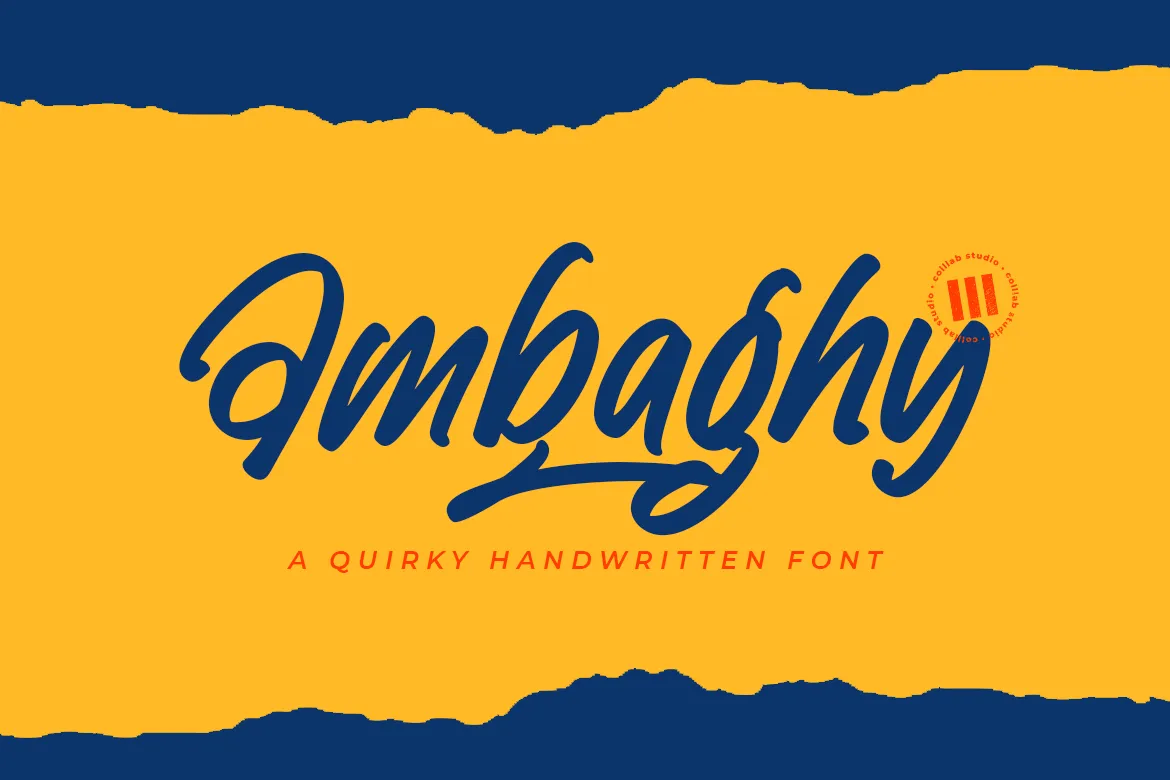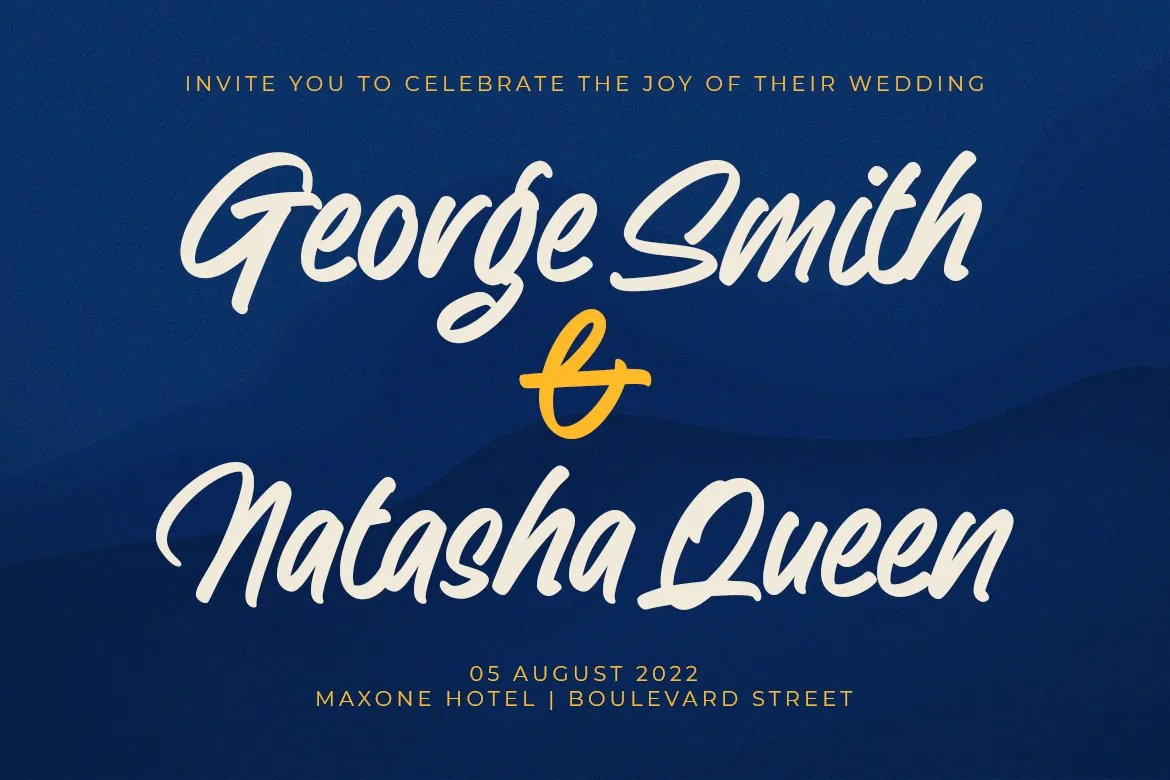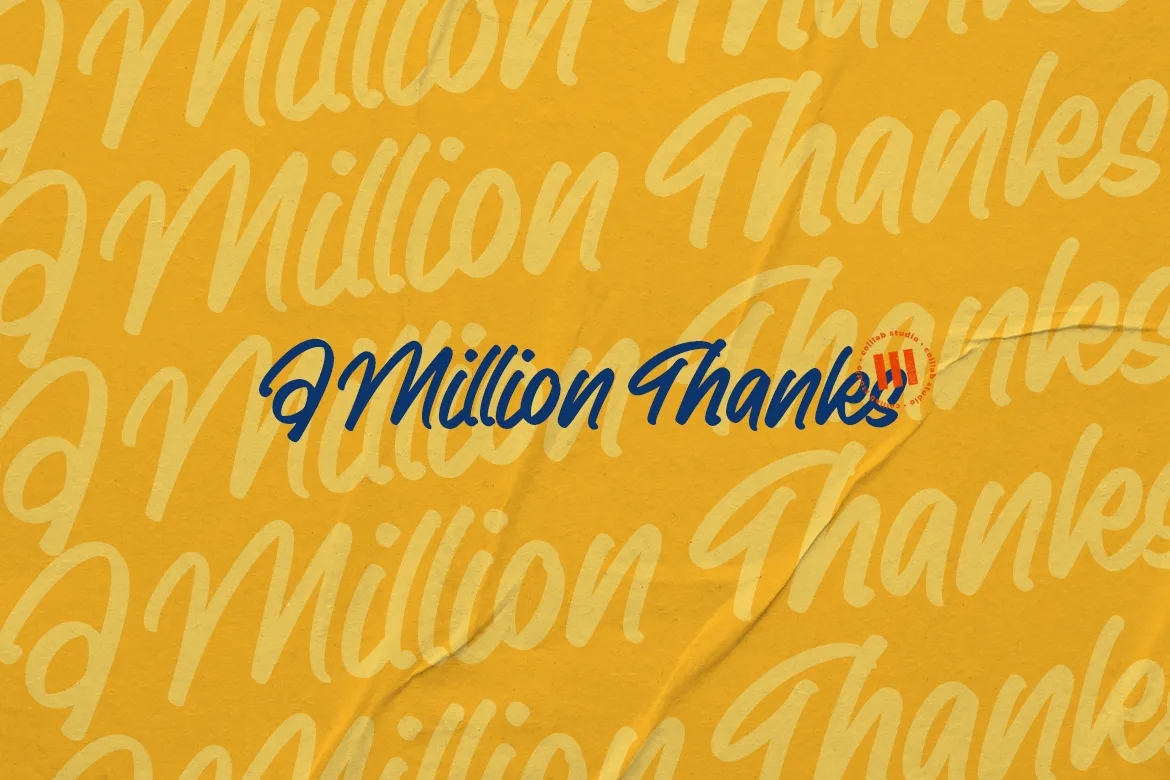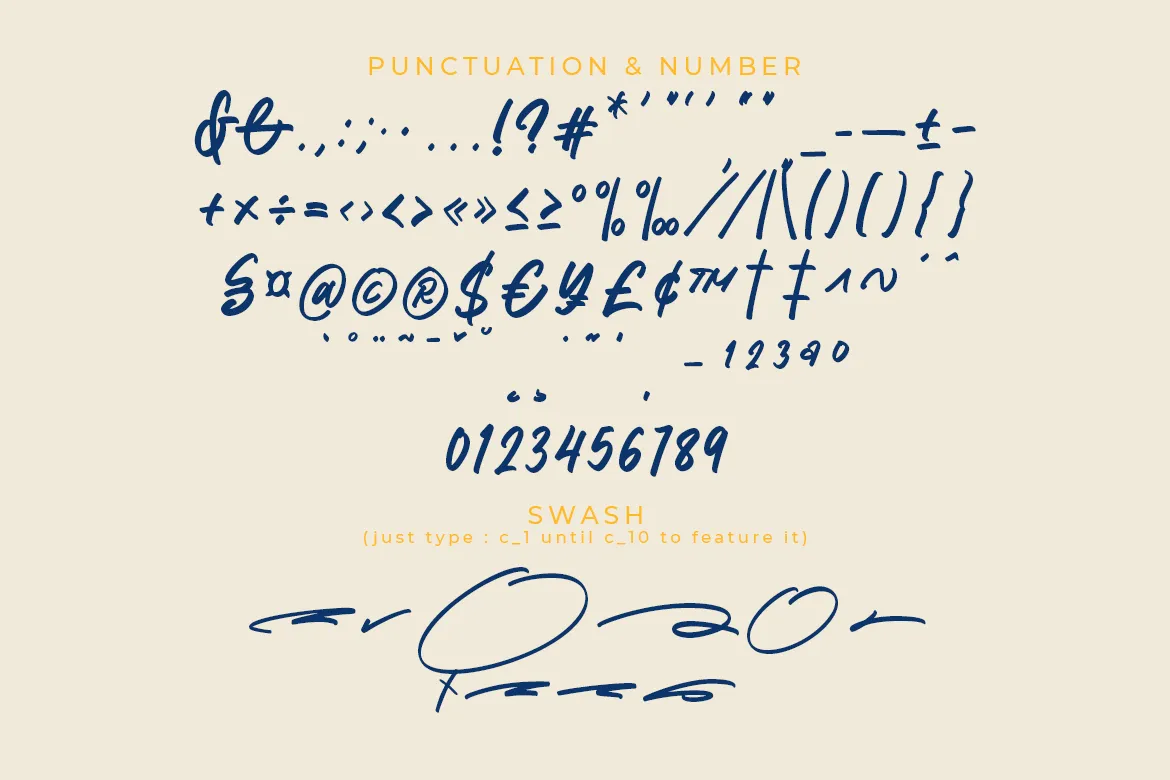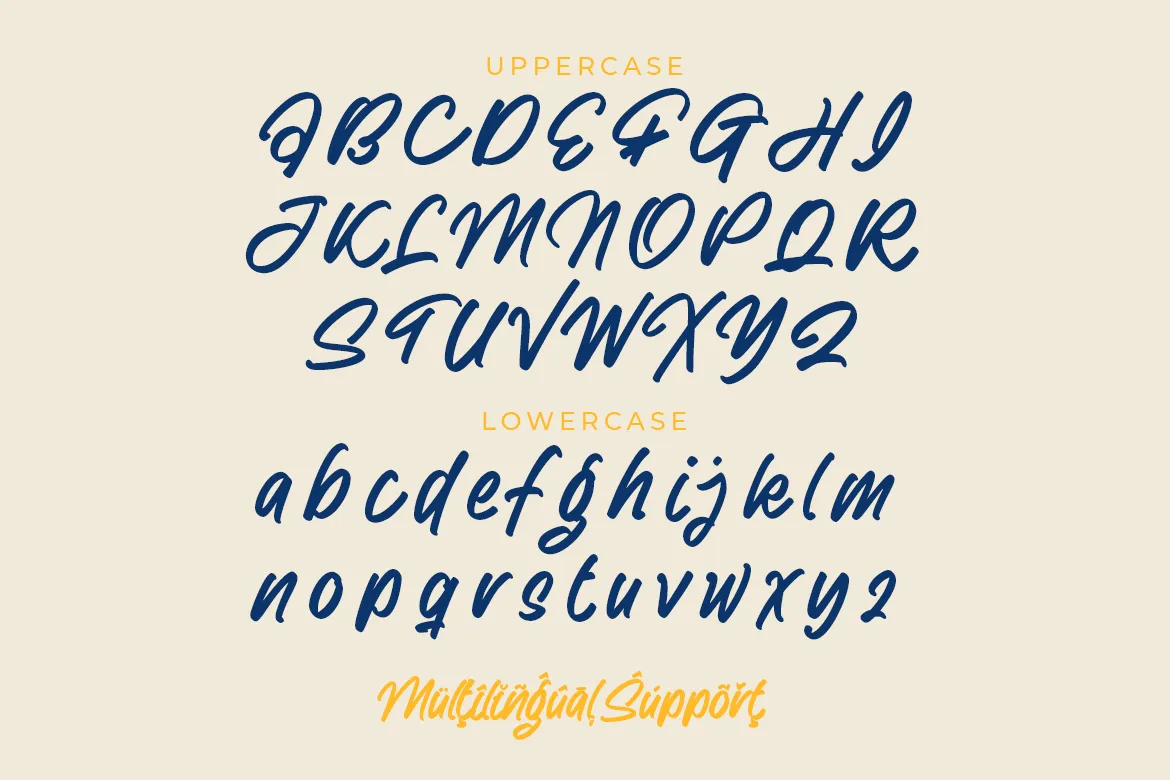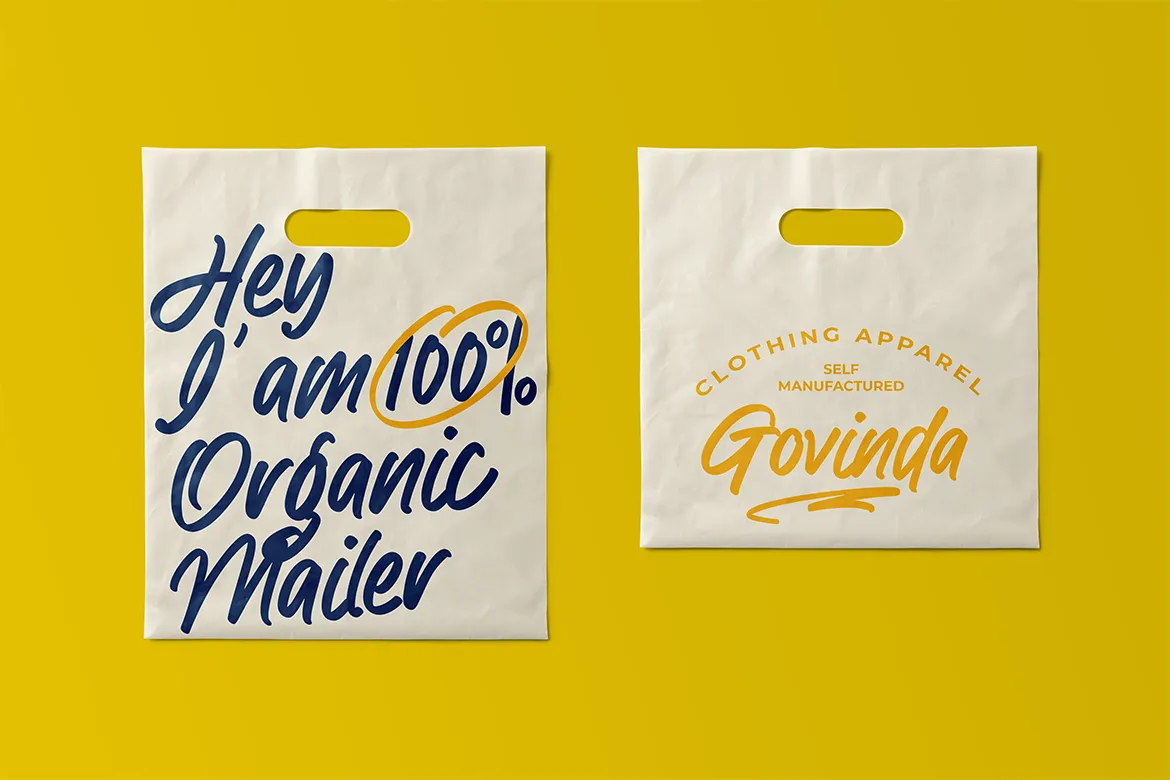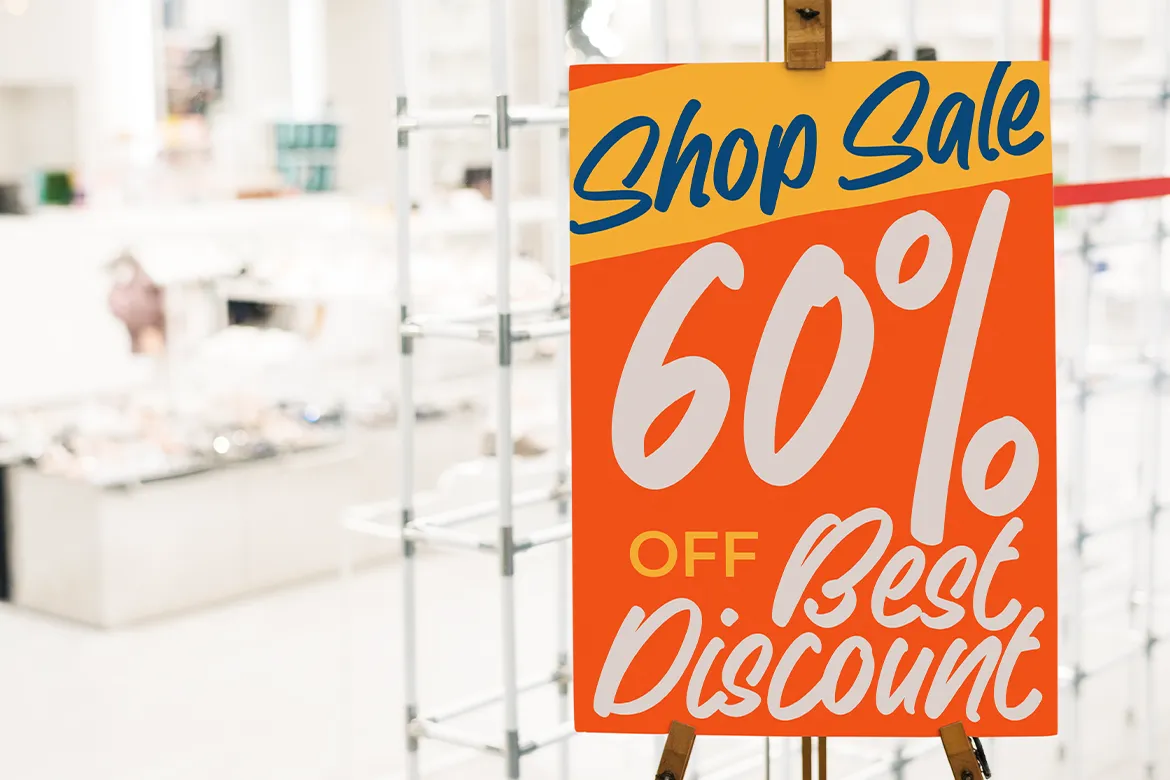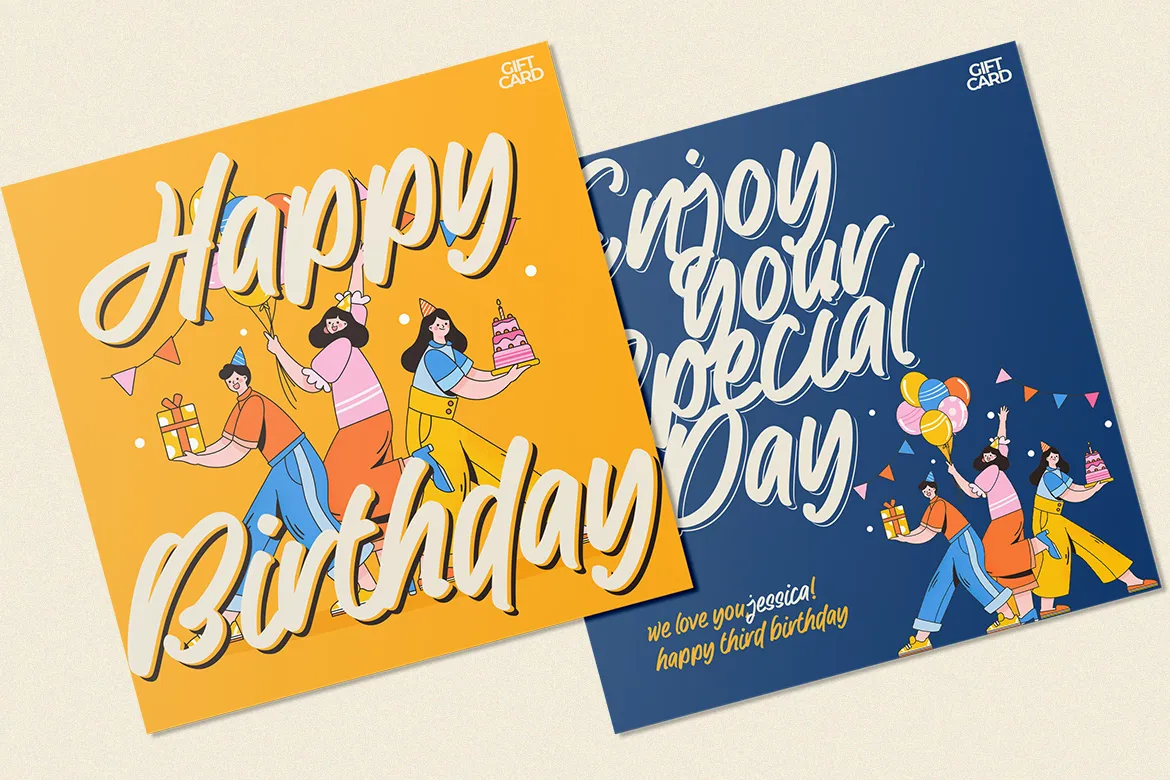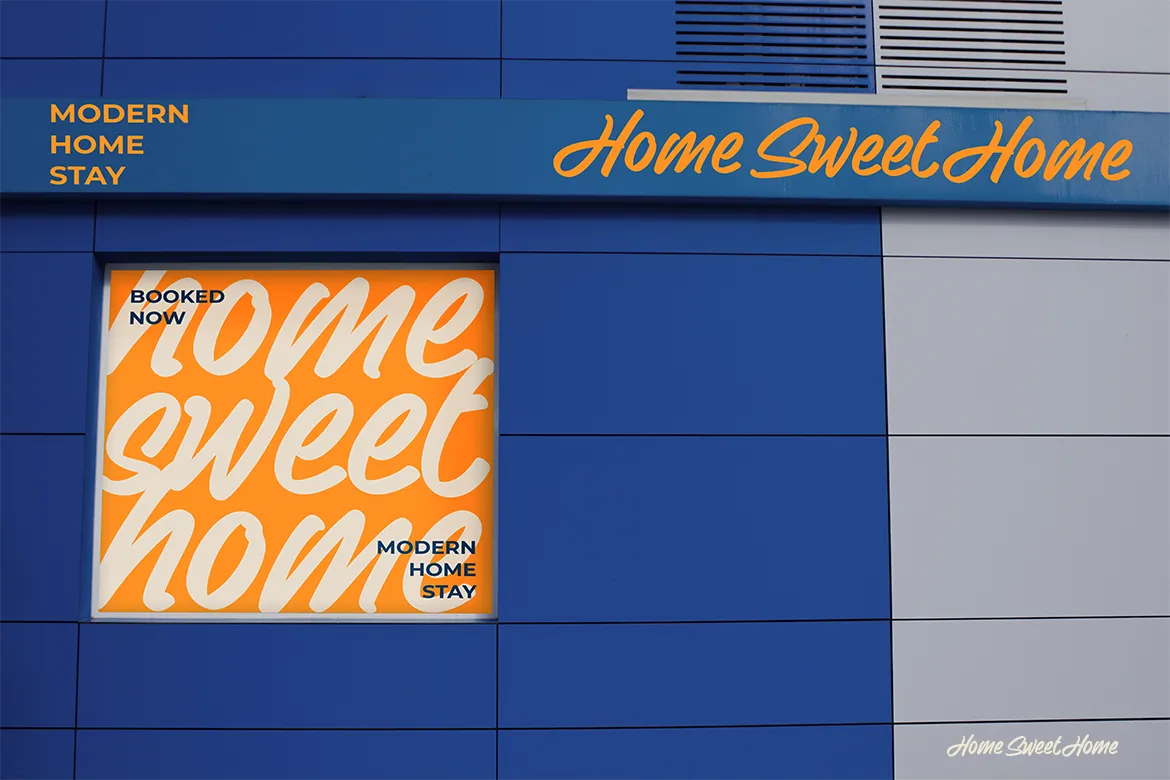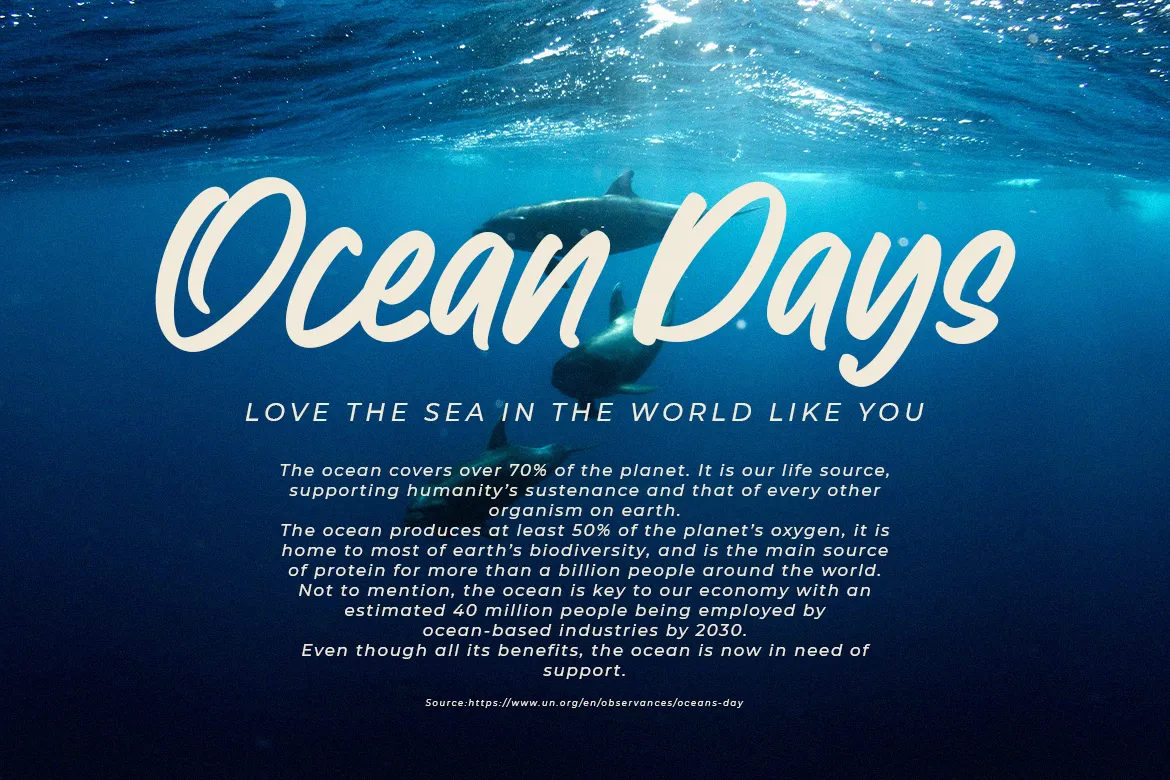
Ambaghy is a goofy font that’s elevated by its posh, handwritten style. It will spice up your designs and add a unique feel to your design and it just might be the secret ingredient you’ve been missing.
Ambaghy works great for logos and headlines, and also works well in text blocks of body copy.